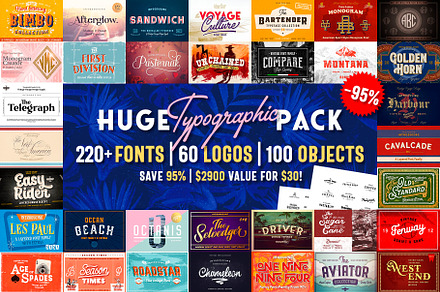
A working toolkit rather than a single typeface: a broad family of display and text cuts bundled with 60 pre-built logo templates that already use them. For anyone assembling a brand identity from scratch, the pairing decisions have been made for you.
The 60 logos span monogram marks, wordmarks and badge lockups, all vector and all fully editable. Change the business name, adjust the palette, and you have a usable identity – or pull them apart for parts.
- Multilingual character set with alternates and ligatures
- Complete small-business brand identities
- Logo and monogram development
- Packaging, signage and merchandise
- Social templates and marketing collateral